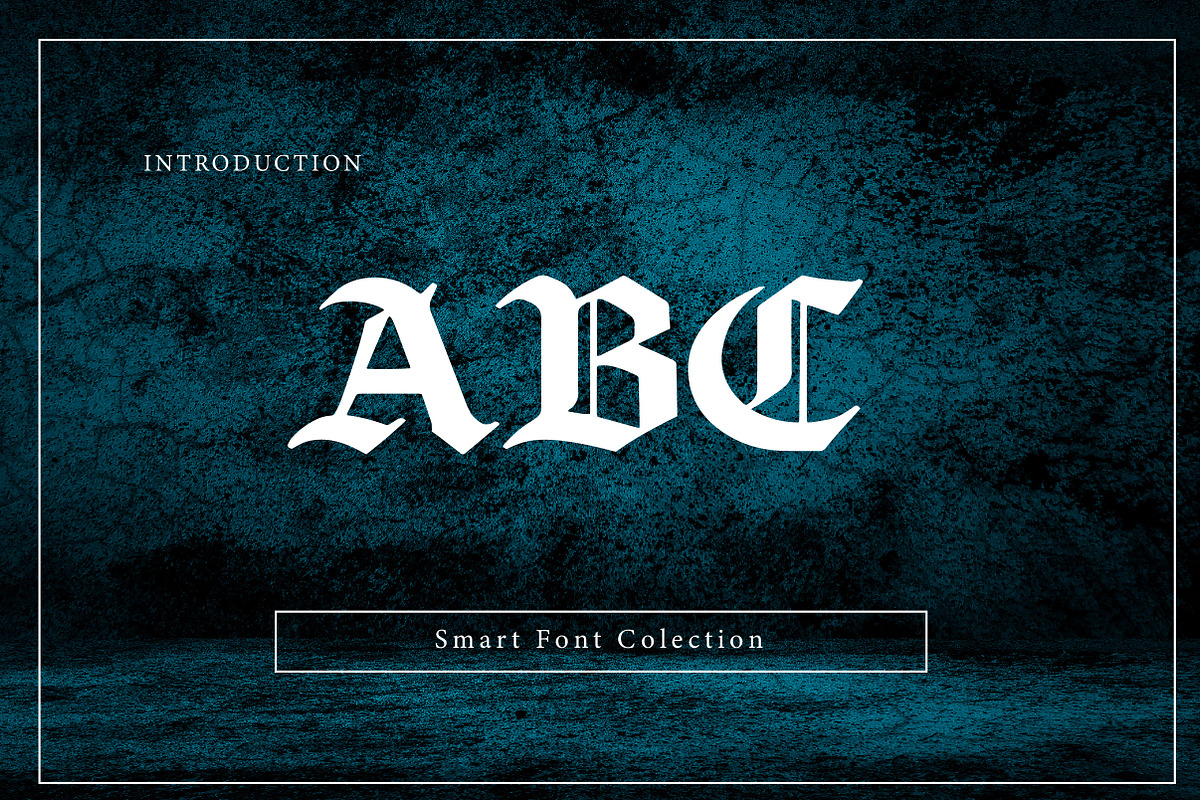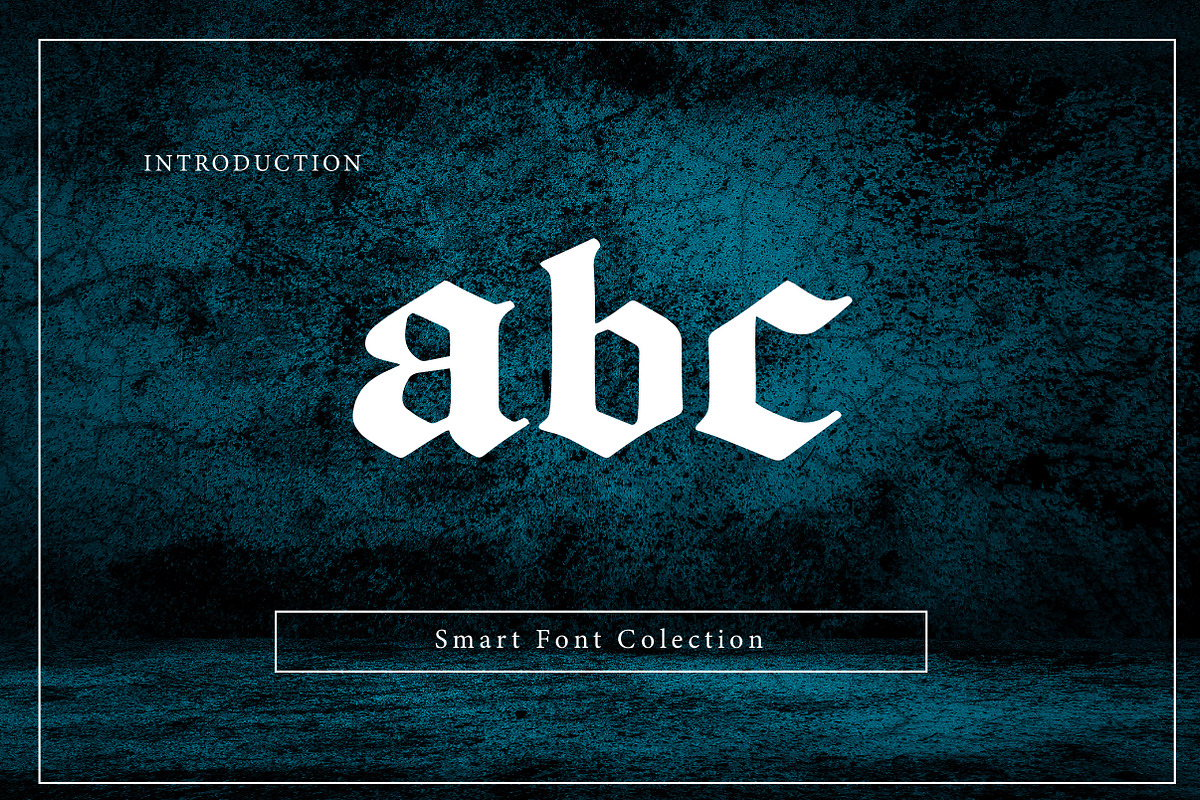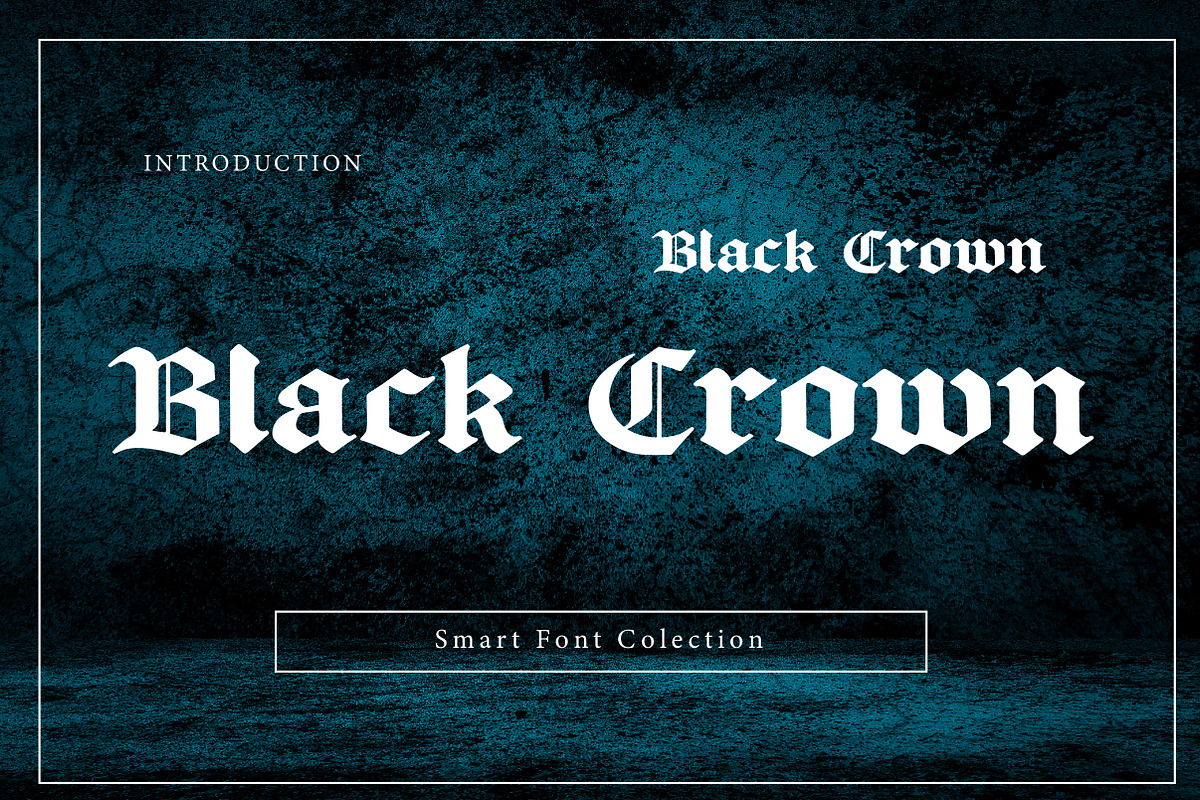
Black Crown
Black Crown is a bold blackletter display typeface inspired by medieval, gothic, and old English typography. The font features sharp edges, strong contrast, and classic letterforms that create a powerful, royal, and dramatic appearance. Its dark and elegant style makes it perfect for logos, titles, branding, posters, tattoos, album covers, and vintage or gothic-themed designs. This font is ideal for projects that require a traditional, historical, or luxury feel with a strong visual presence. Black Crown delivers an authentic old-world atmosphere while remaining impactful and highly expressive.